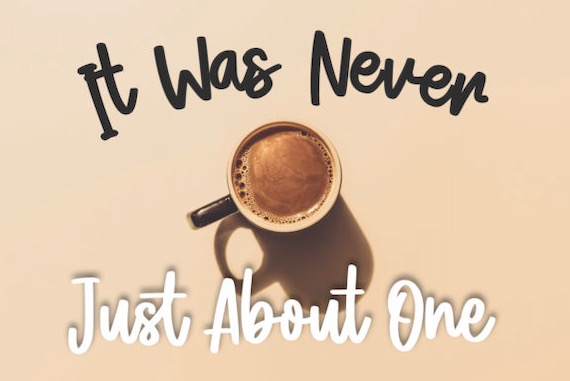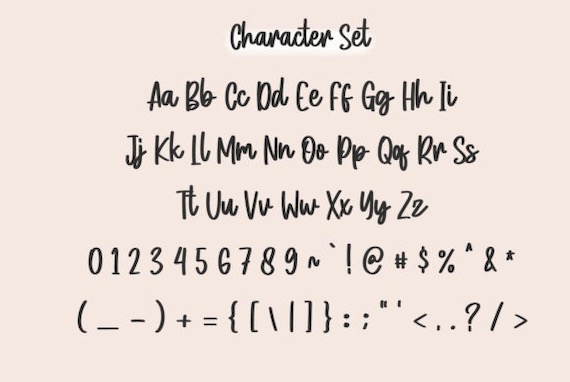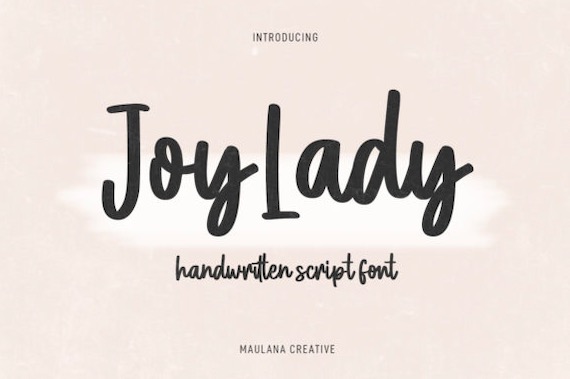
Joylady will make your projects become more cool and professional. It’s an elegant and cheerful script font with a paint-brushed handwritten look. This is a modern handwritten font that was created and shared by Maulana Creative. Besides, It has a beautiful and balanced character, that fits well with the large design pool. It will look extraordinary in a variety of contexts.
Joylady Handwritten Script Font